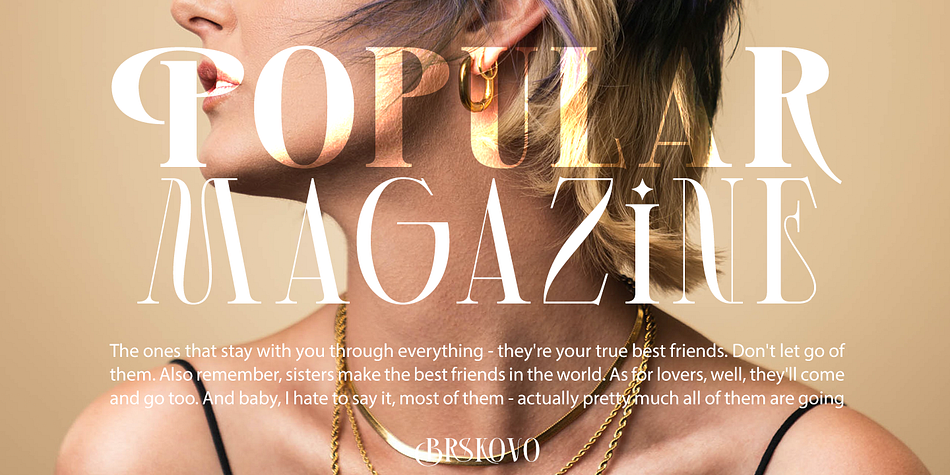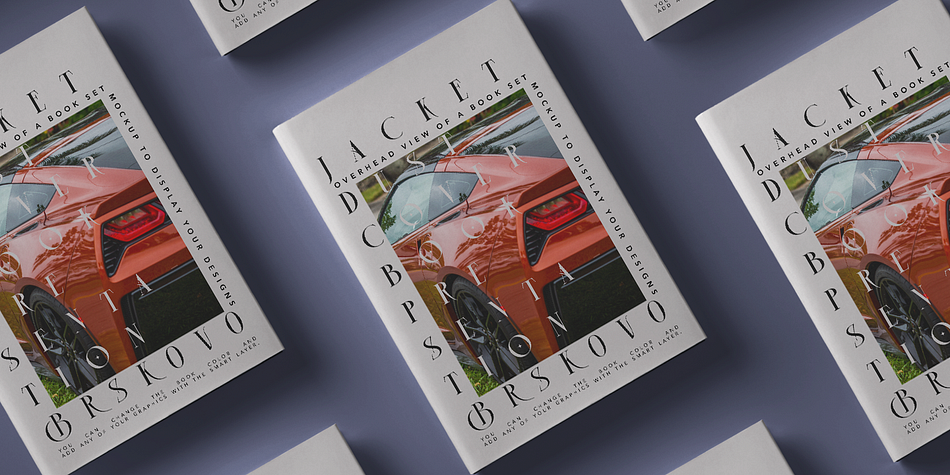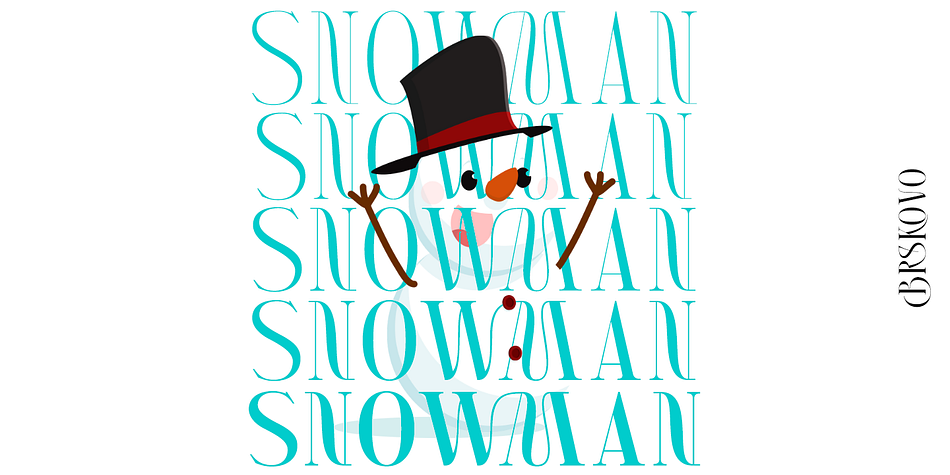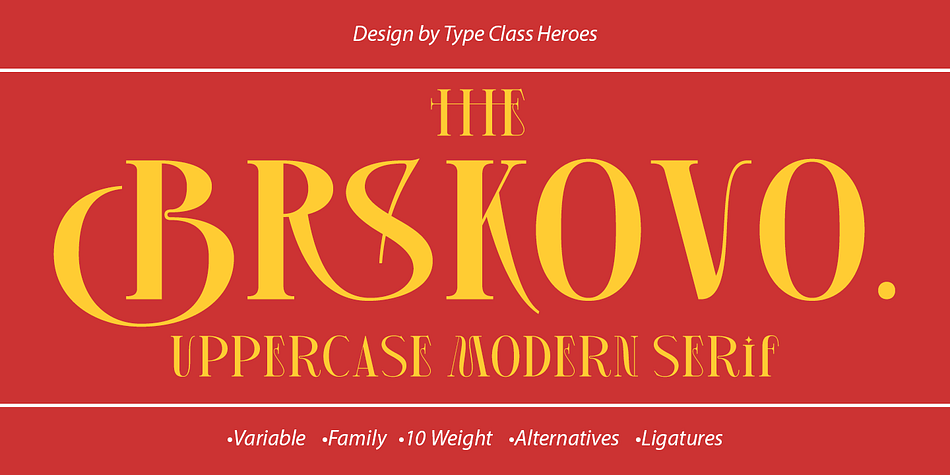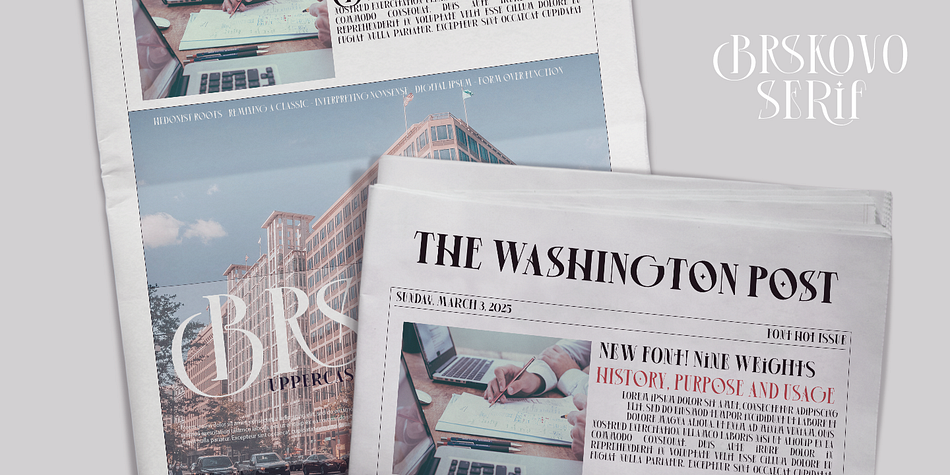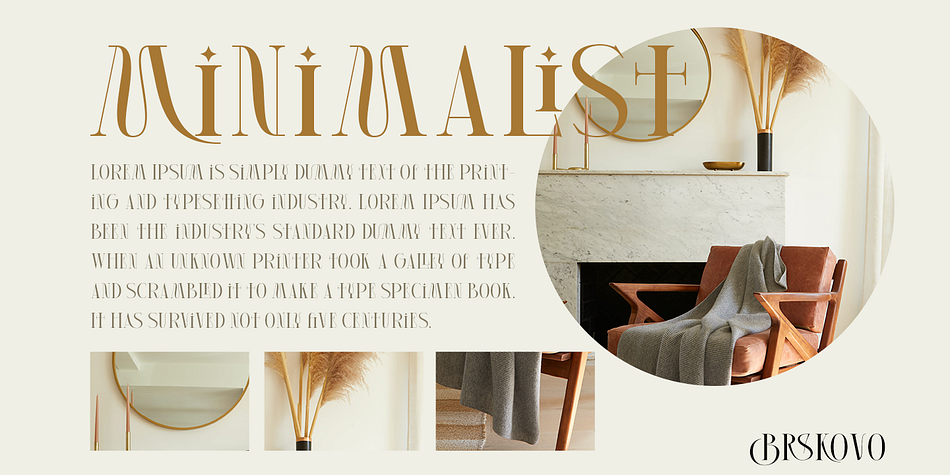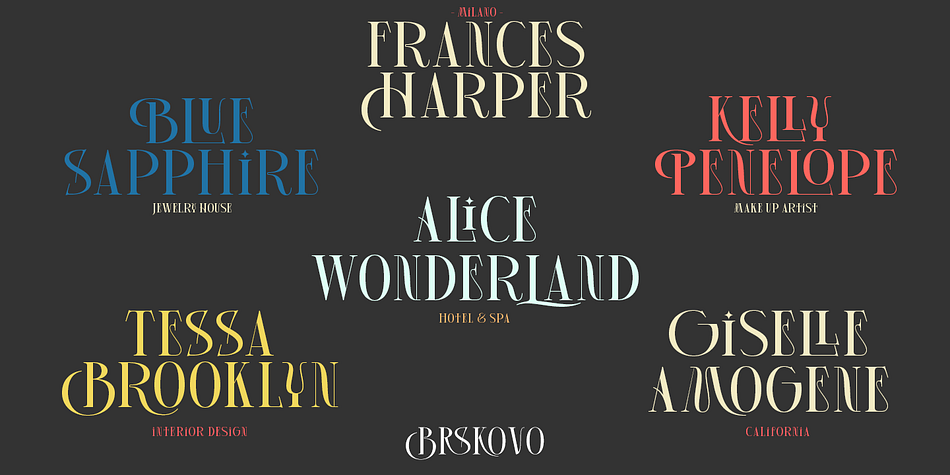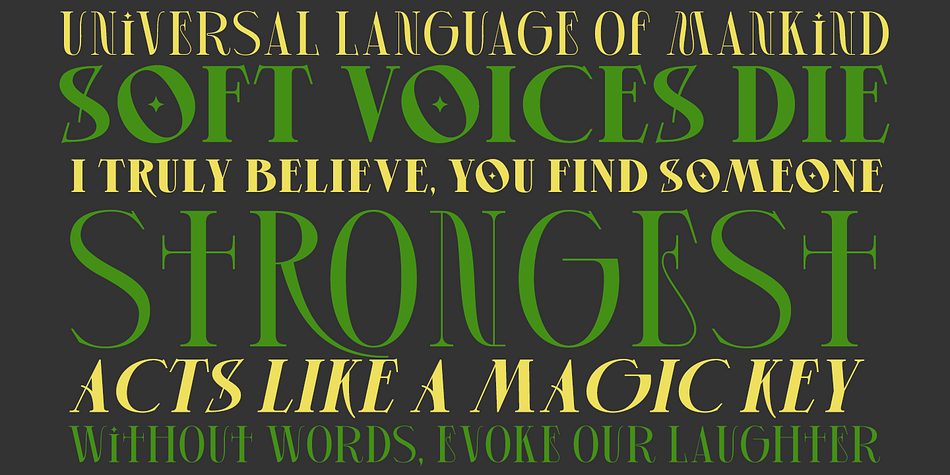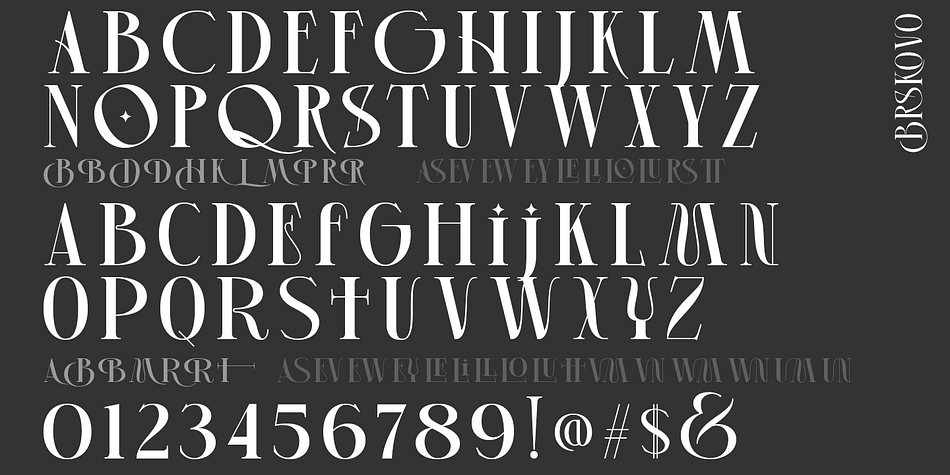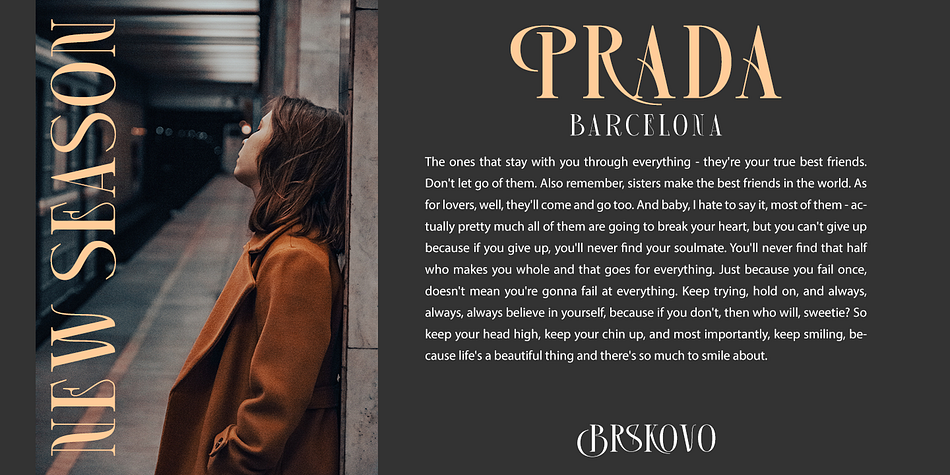
Designed by Suandana Ipandemade, Brskovo is a display serif font family. This typeface has twenty styles and was published by madeDeduk.
Introducing Brskovo is a modern uppercase serif, use this font for any branding, product packaging, invitation, quotes, t-shirt, label, poster, logo etc.
- Alternative
- Ligature